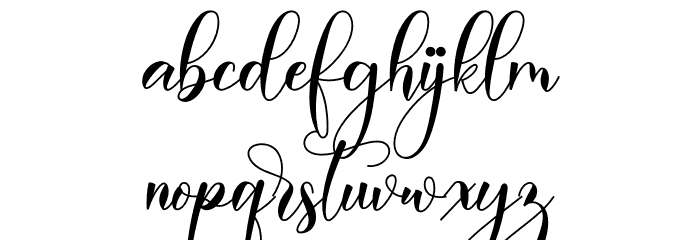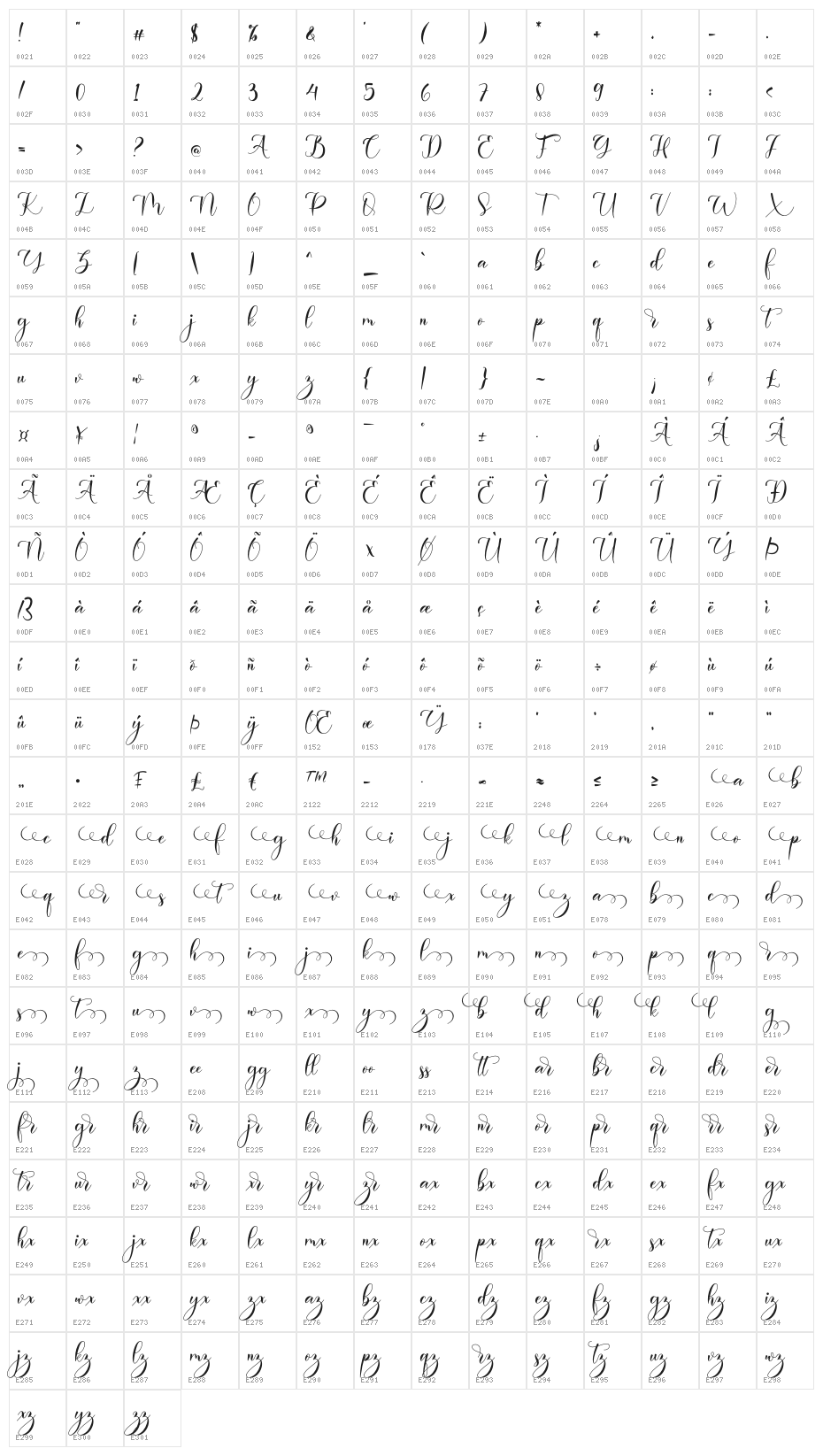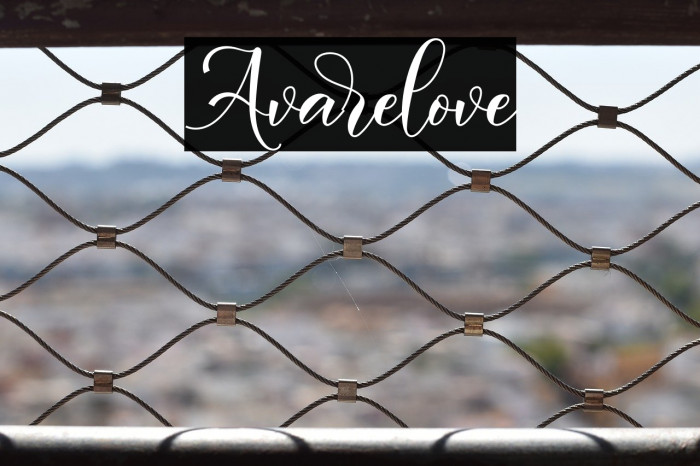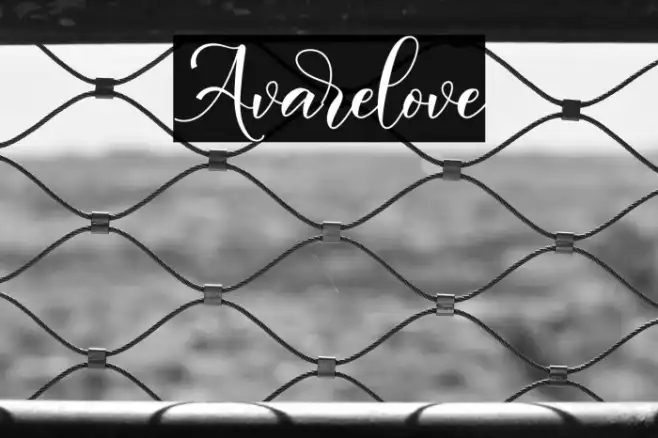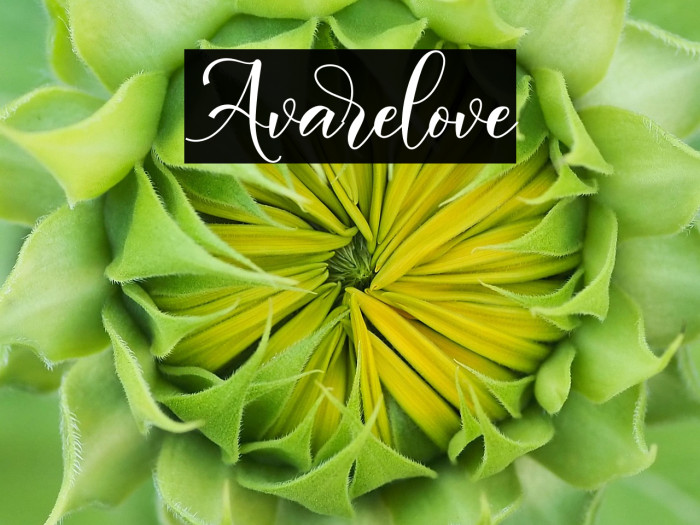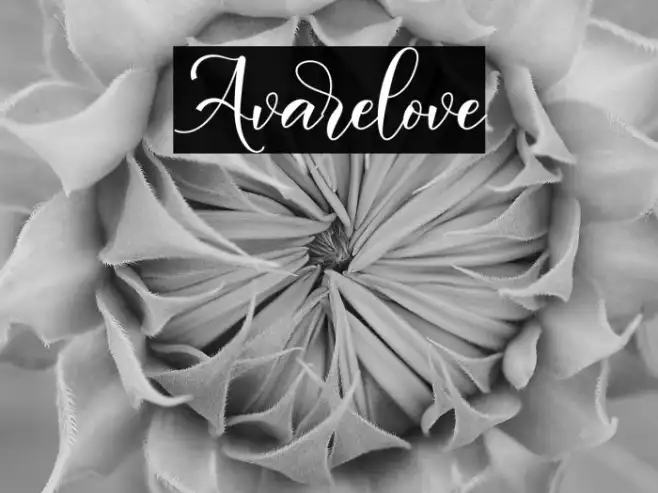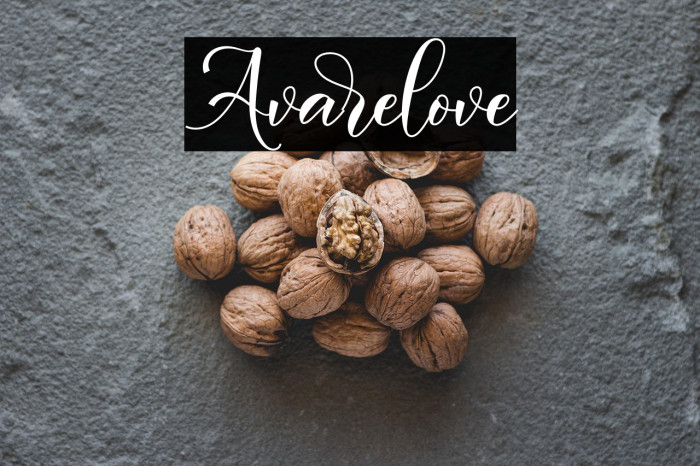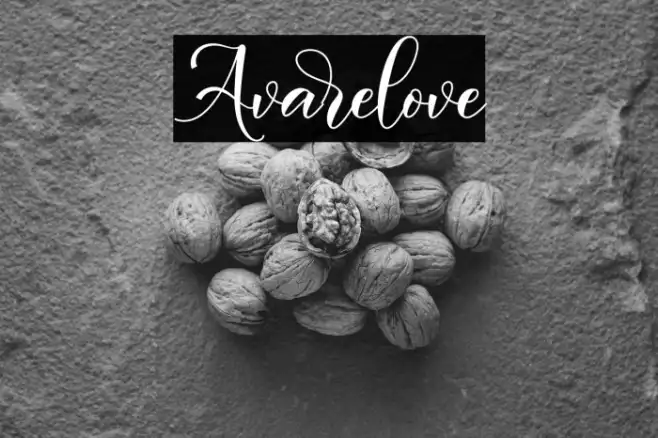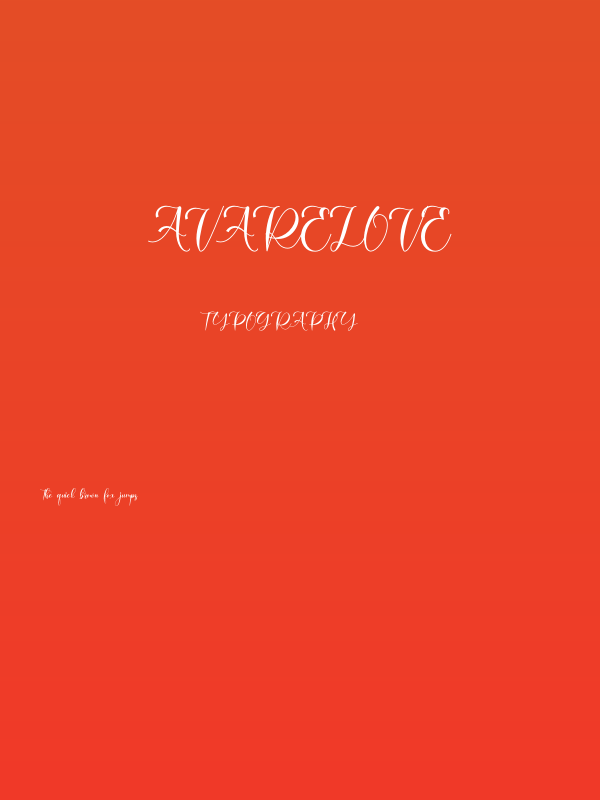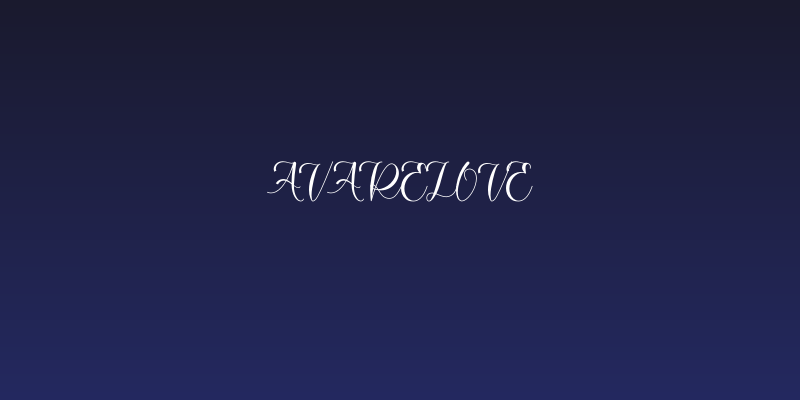
Avarelove Font
This font features an elegant and flowing script style, characterized by its graceful curves and loops. The uppercase letters are particularly ornate, with intricate swashes that add a touch of sophistication. The lowercase letters maintain a consistent flow, enhancing readability while still retaining a decorative flair. The numerals are well-balanced, complementing the overall aesthetic. Special characters are thoughtfully designed to match the font's elegant style, making it suitable for a variety of creative applications.
An elegant and flowing script font with ornate uppercase letters and consistent lowercase flow.
- Proposed Projects: Ideal for wedding invitations, greeting cards, branding projects, and elegant logos.
- Overall Style: Elegant
- Use Case: Logos, Invitations, Decorative text